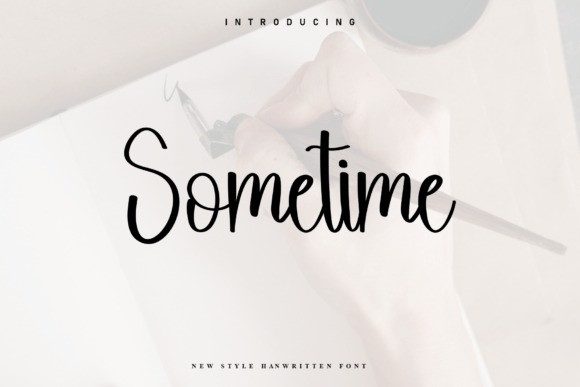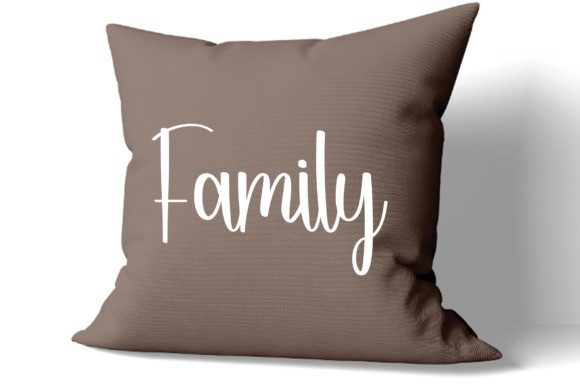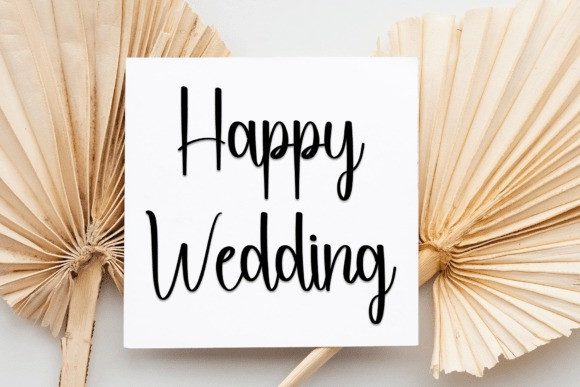
Sometime Script Type
Sometime Script Type is a sweet and beautiful handwritten font. Featuring characters that dance along the baseline, this font will add a cozy accent to any design project you wish to create!